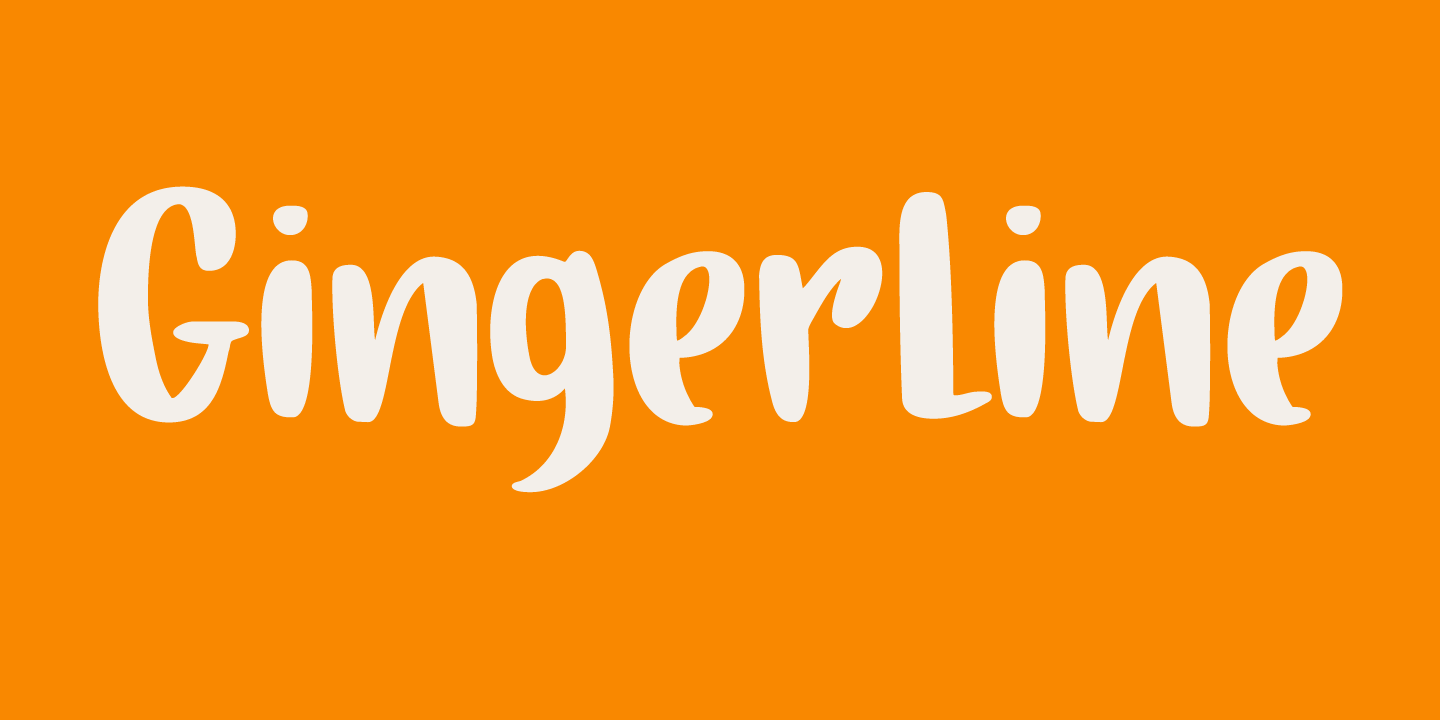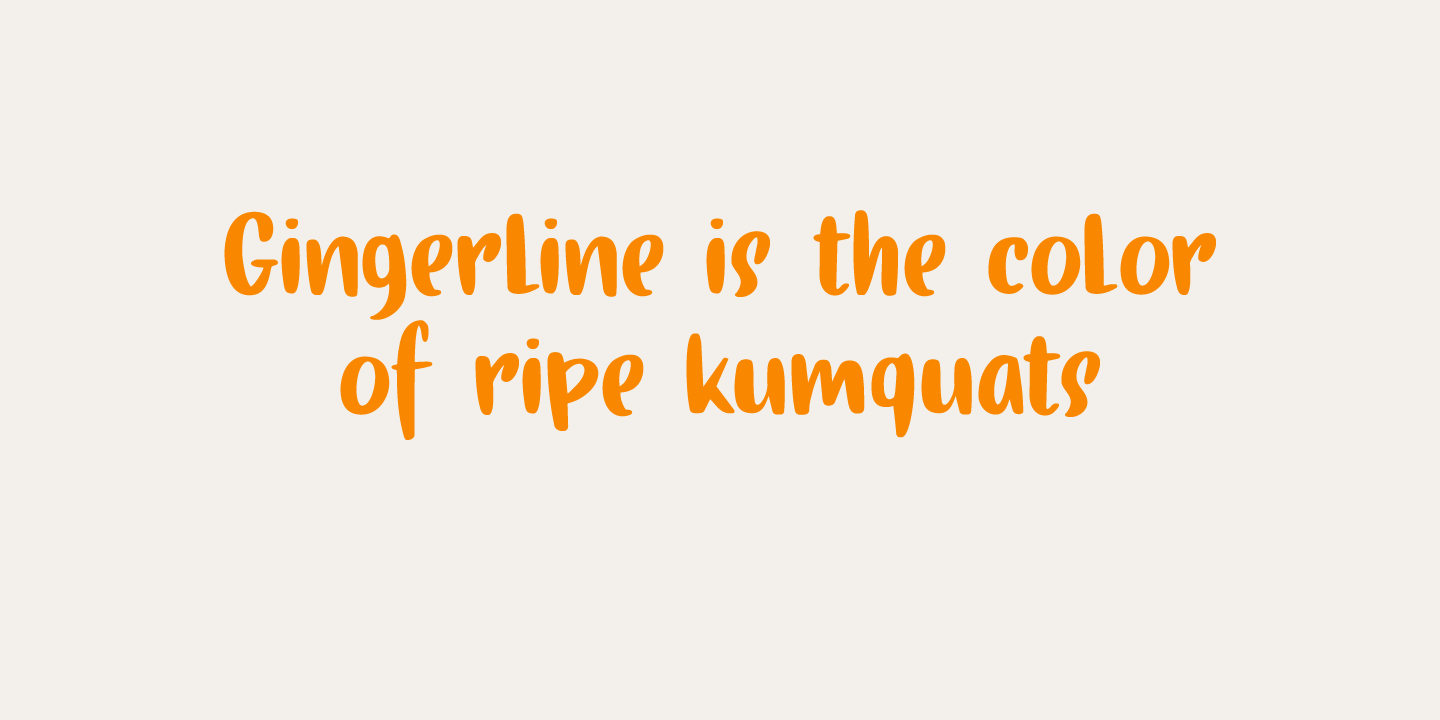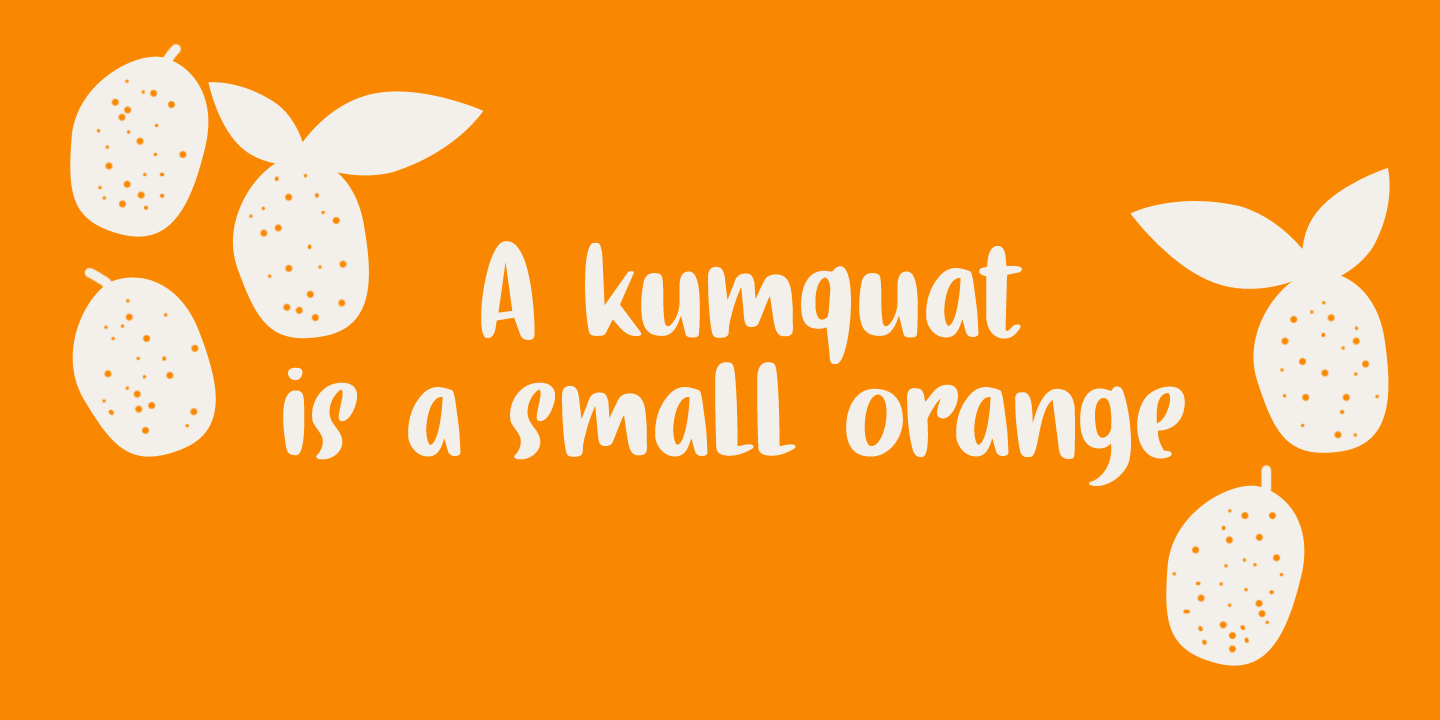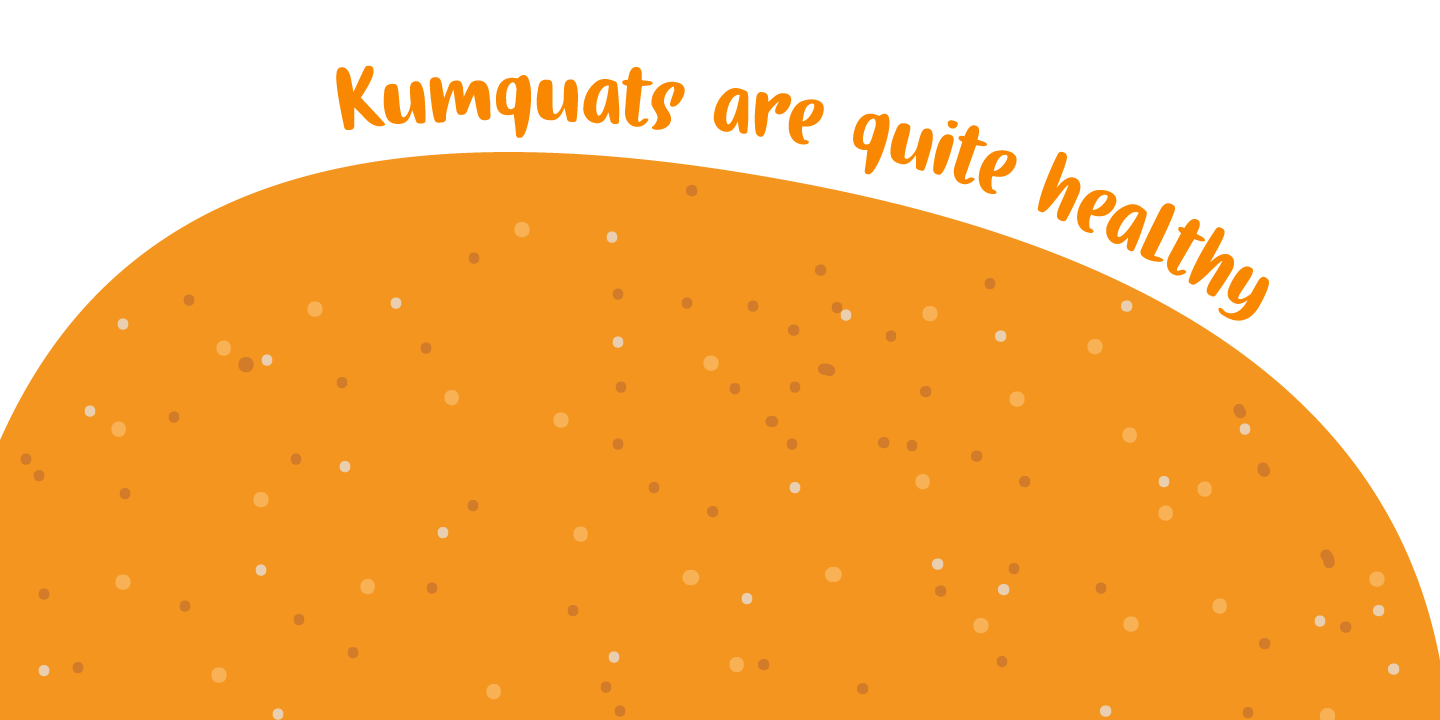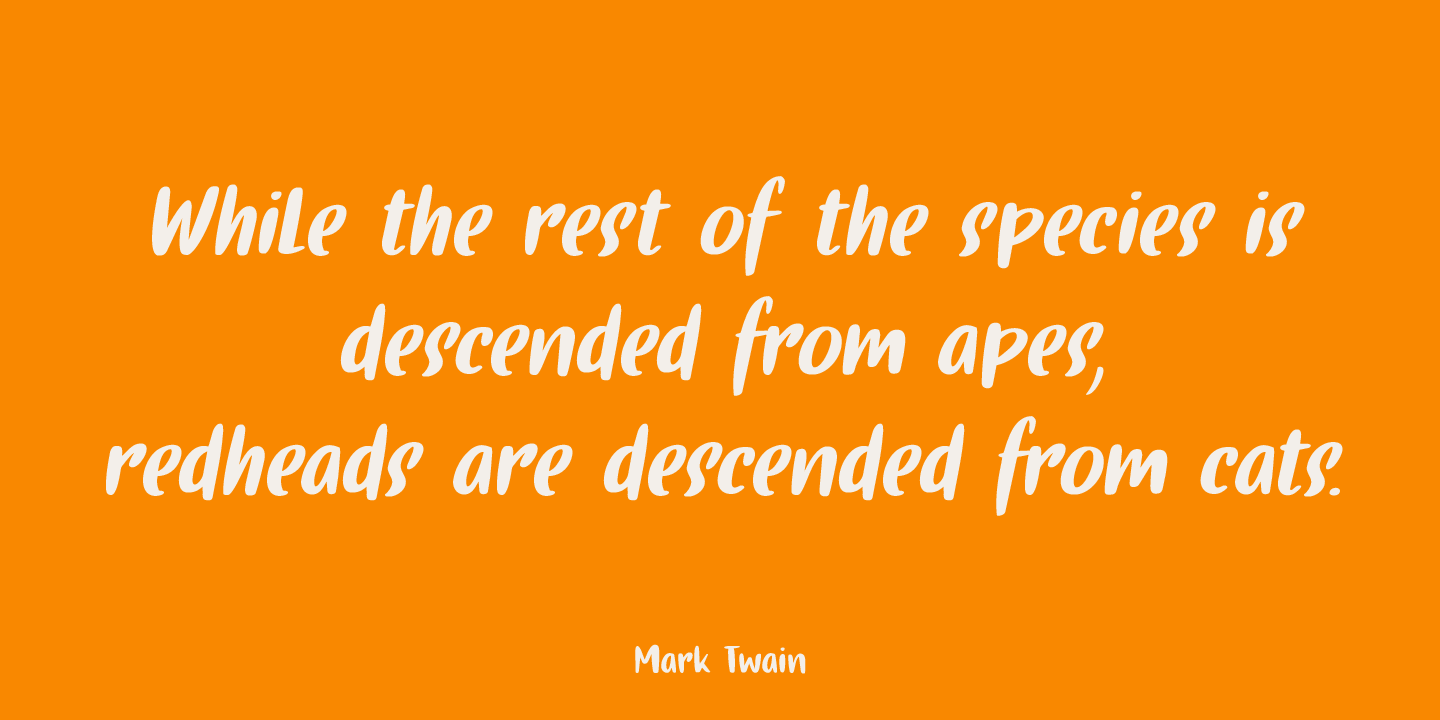
Gingerline
I love learning new words. I stumbled upon the term Gingerline after I named an older font Gamboge. Like Gamboge, Gingerline is a name for a shade of orange - the color of ripe kumquats to be precise. Didn't know that!
Gingerline font is a handmade calligraphy font; nice and even, thick and thin and quite elegant if I may say so. Comes with an abundance of diacritics as well.